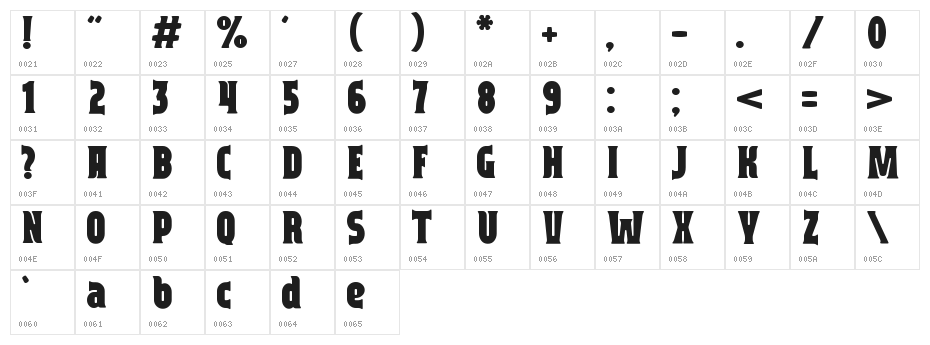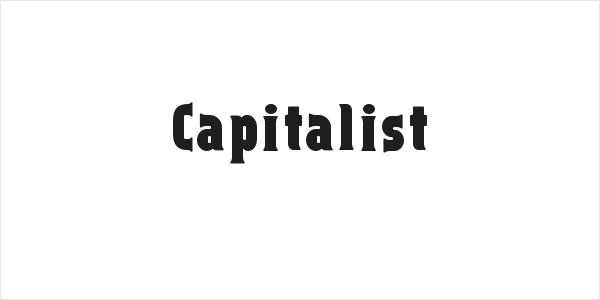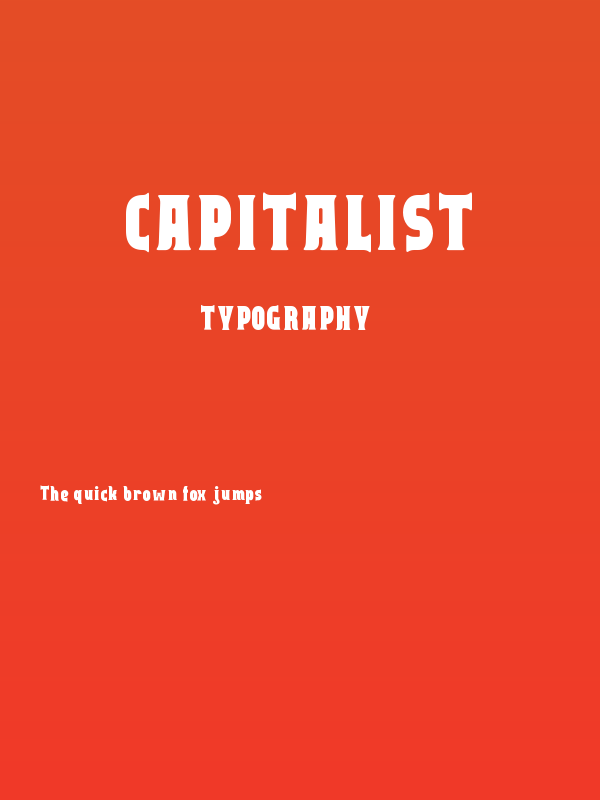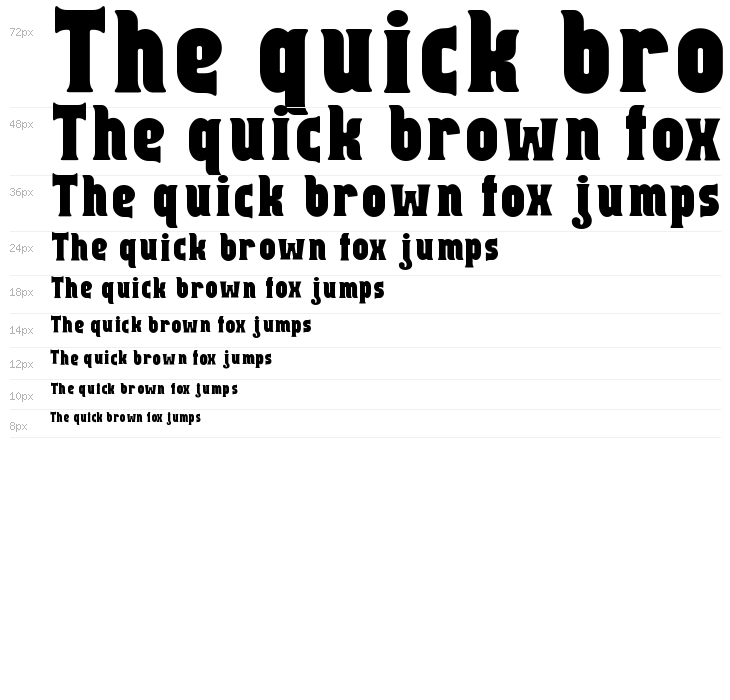
Capitalist Font
Capitalist Description
This font features a bold and robust design with thick, heavy strokes that give it a strong and commanding presence. The characters are slightly condensed, enhancing its bold appearance. The serifs are prominent and add a classic touch, while the overall style maintains a modern flair. The uppercase letters are particularly striking, with a uniform height that creates a cohesive look. The lowercase letters mirror this strength, maintaining readability with a touch of elegance. Numbers and special characters are designed to match the boldness of the alphabet, ensuring consistency across all text elements.